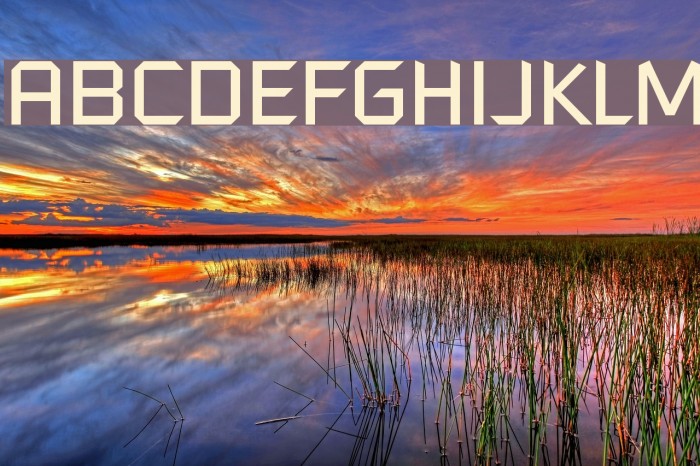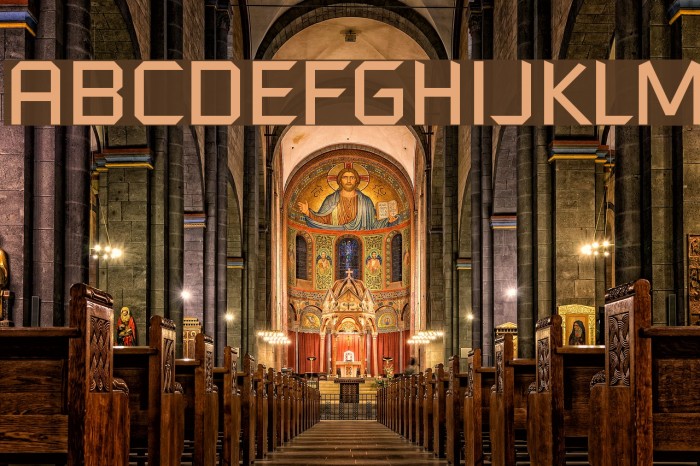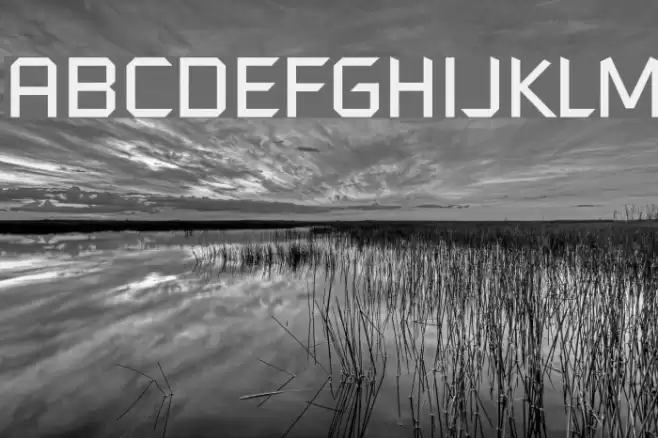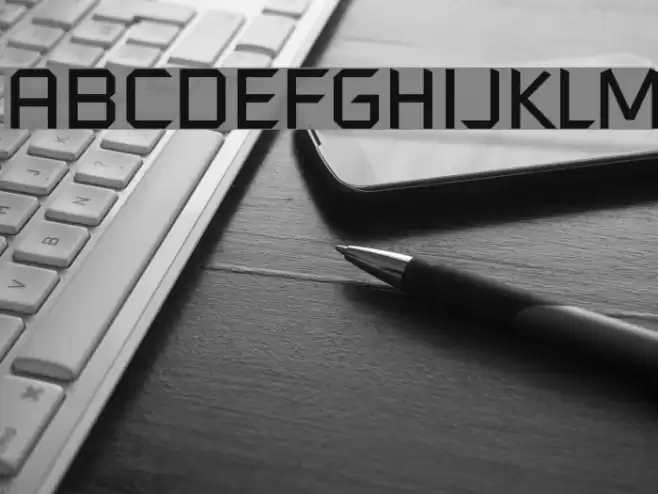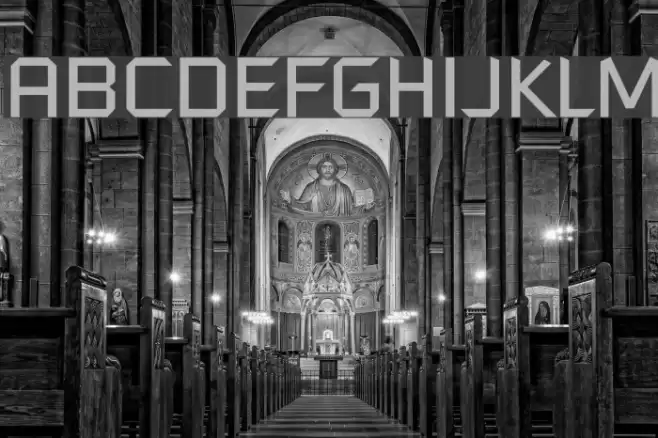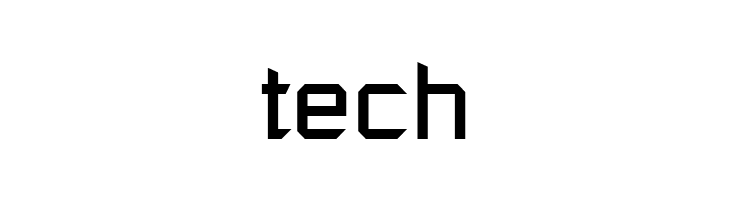
RussellSquare Font
This font features a geometric, angular design with a modern and futuristic aesthetic. The characters are constructed with sharp, clean lines and a uniform stroke width, giving it a bold and structured appearance. The uppercase and lowercase letters maintain a consistent style, with the lowercase mirroring the uppercase in form but with a slightly reduced height. The numerals and special characters follow the same geometric theme, ensuring a cohesive look across all glyphs. The overall design is minimalistic yet impactful, making it suitable for a variety of applications where a contemporary and assertive typeface is desired.
A geometric, angular font with a modern, futuristic style.
- Proposed Projects: Ideal for technology branding, modern advertising, digital interfaces, and futuristic designs.
- Use Case: Headlines, Logos, Digital Interfaces